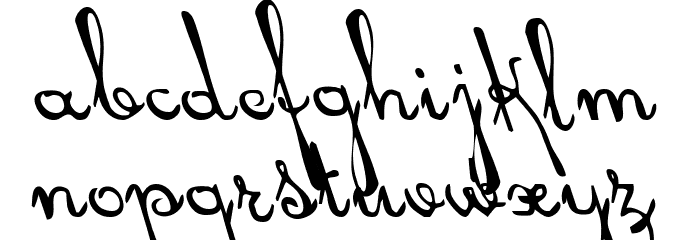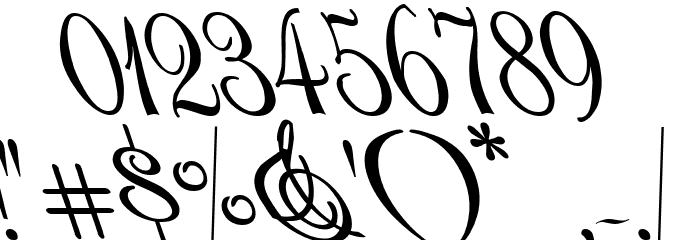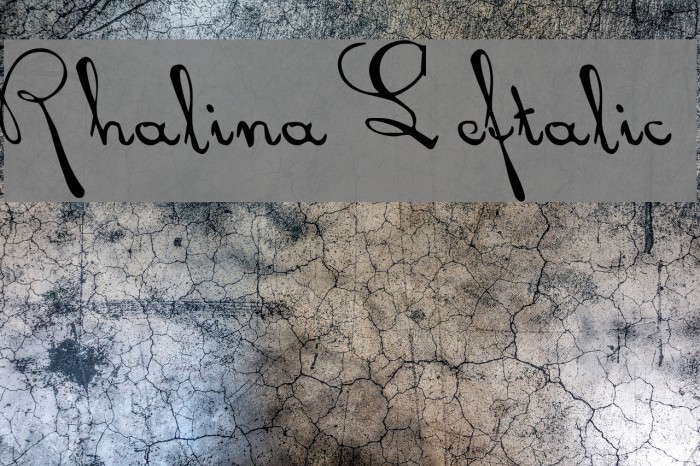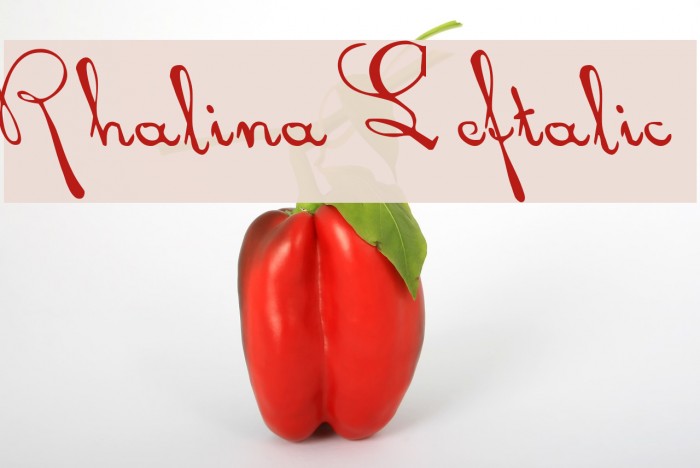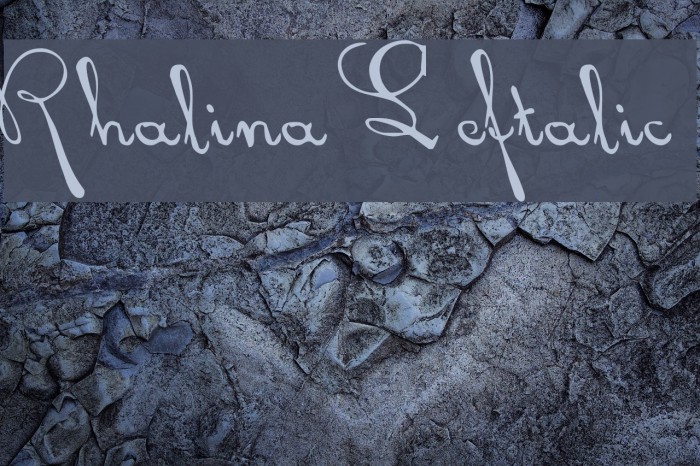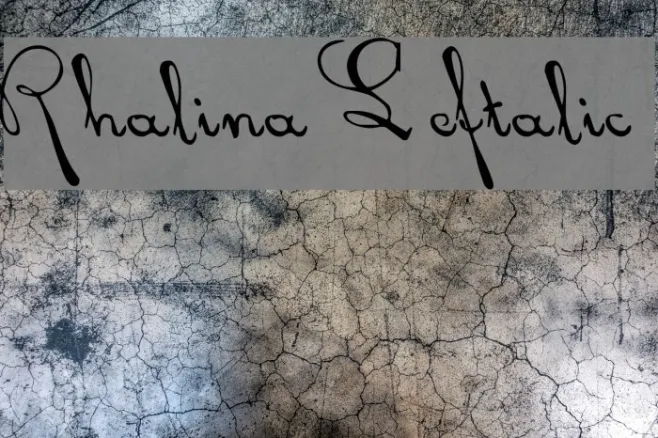
Rhalina Leftalic Font
This font features an elegant, flowing script style with intricate loops and swirls, creating a sense of movement and grace. The uppercase letters are particularly ornate, with decorative flourishes that add a touch of sophistication. The lowercase letters maintain a consistent style, with smooth, connected strokes that enhance readability while preserving the font's artistic flair. Numbers and special characters are designed with the same attention to detail, ensuring a cohesive look across all elements. The overall appearance is both stylish and whimsical, making it suitable for creative and decorative applications.
An elegant, flowing script font with intricate loops and swirls.
- Font: Rhalina Leftalic
- Category: Script